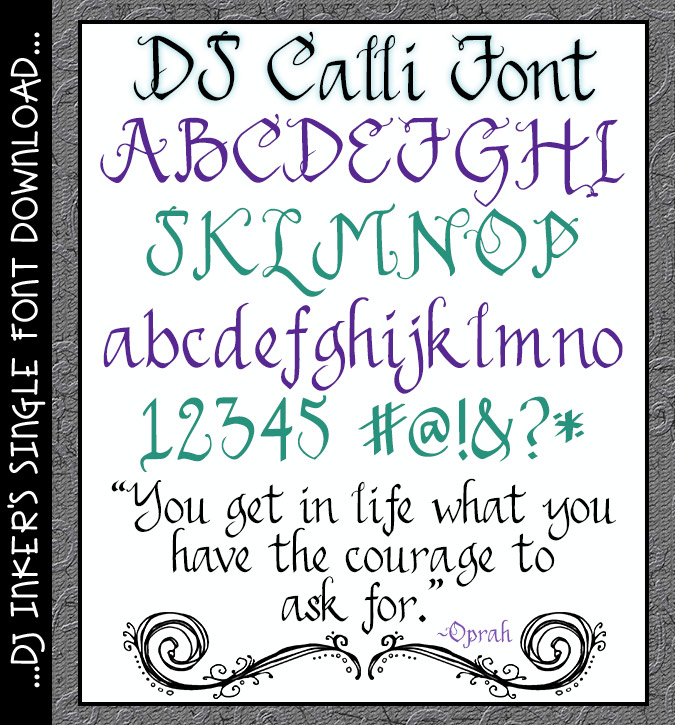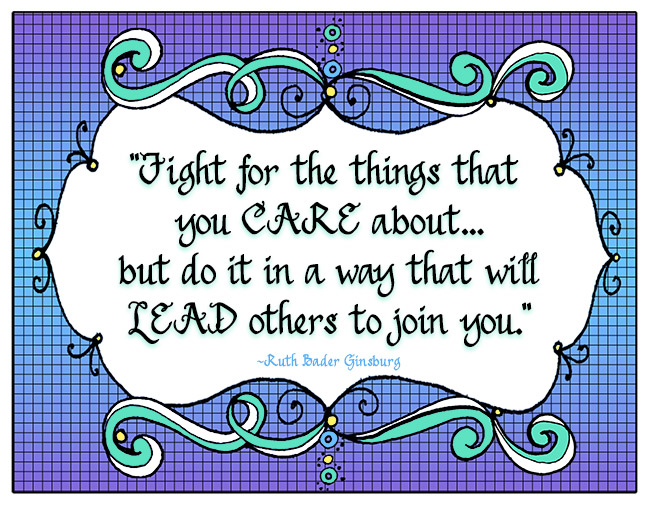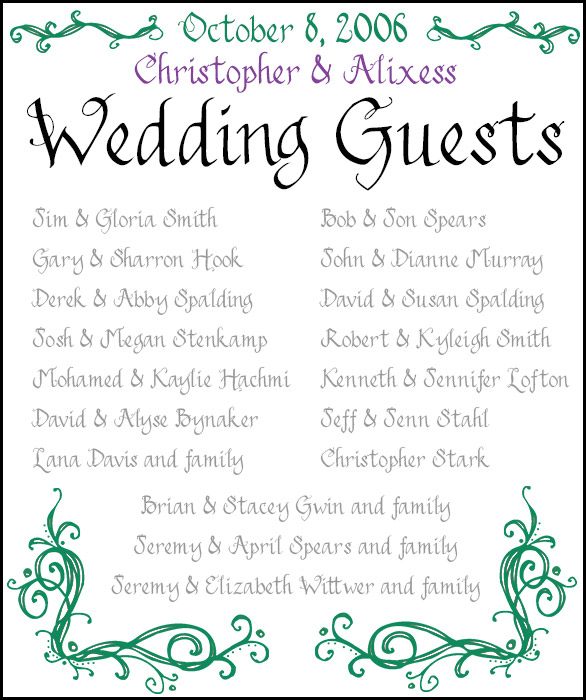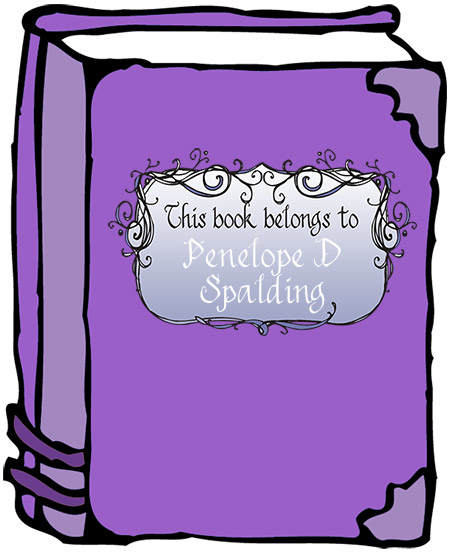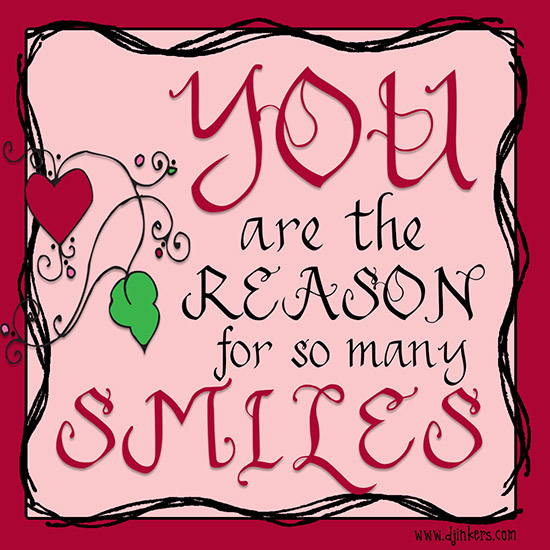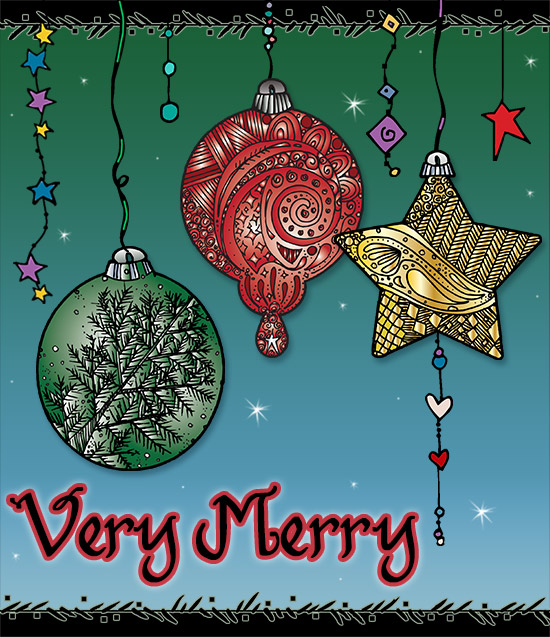
DJ Calli Font - Calligraphy Lettering Download
Your lettering will look just lovely with our elegant font, DJ Calli.
This hand drawn calligraphy adds a touch of class for your headlines...
while still being easy to read as smaller text. Great for weddings, graduation,
fancy invitations, scrapbooks, home crafts and typing up smiles.